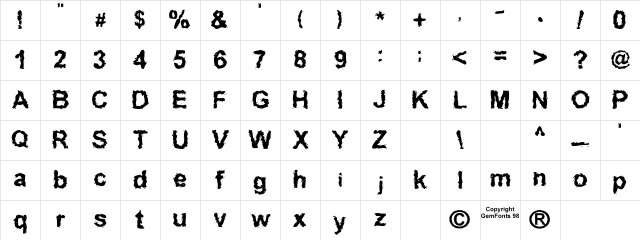
Inked weird Free Font
Inked weird
Style: weird
Inked Family
Complete Inked weird glyph index. Displaying only characters natively supported by Inked weird font.
Design Context for Inked
Inked is a composed and adaptable typeface that performs quietly and consistently across a wide range of design contexts.